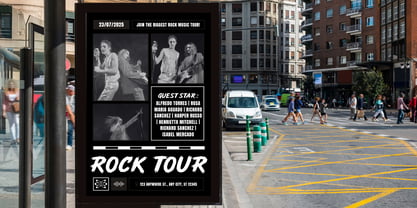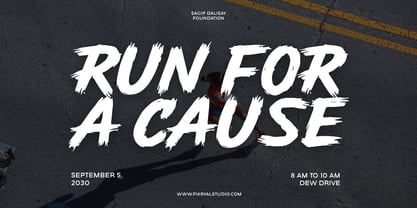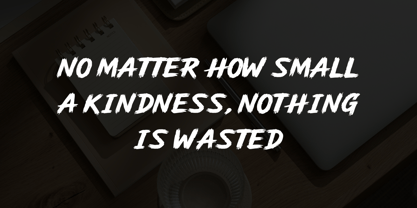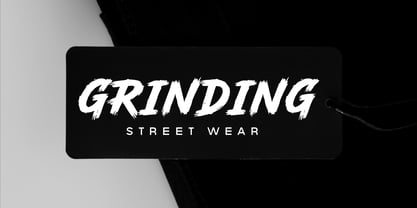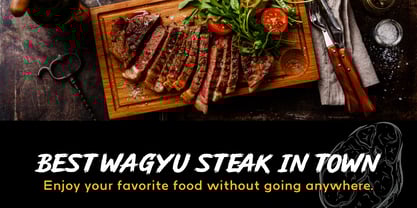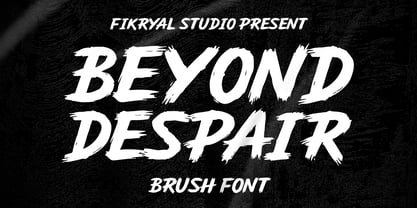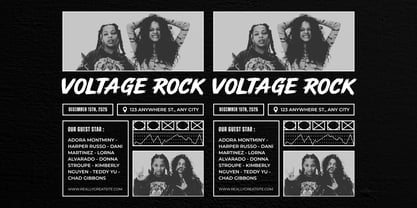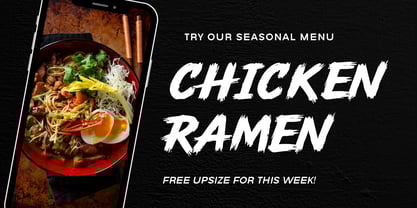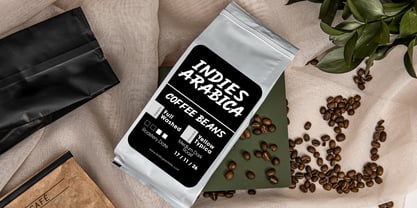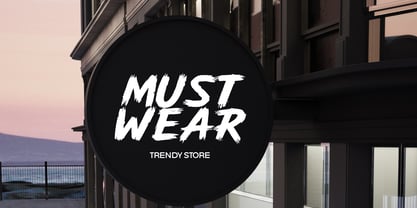
Beyond Despair
by Fikryal
The Beyond Despair Font Family was designed by Muhammad Fikry and published by Fikryal. Beyond Despair contains 1 styles.
Beyond Despair is a bold and expressive all caps brush font that brings raw energy and strong character to your designs. Crafted with a natural brush stroke, this font is perfect for projects that need a powerful and rebellious touch. Whether you’re designing a poster, branding, album cover, apparel, or promotional graphics, Beyond Despair stands out with its impactful strokes and handcrafted feel.
With a gritty, street-style edge, Beyond Despair delivers intensity and drama in every letterform. It’s ideal for music branding, sport events, bold headlines, urban fashion, and anything that needs to scream with confidence and power.